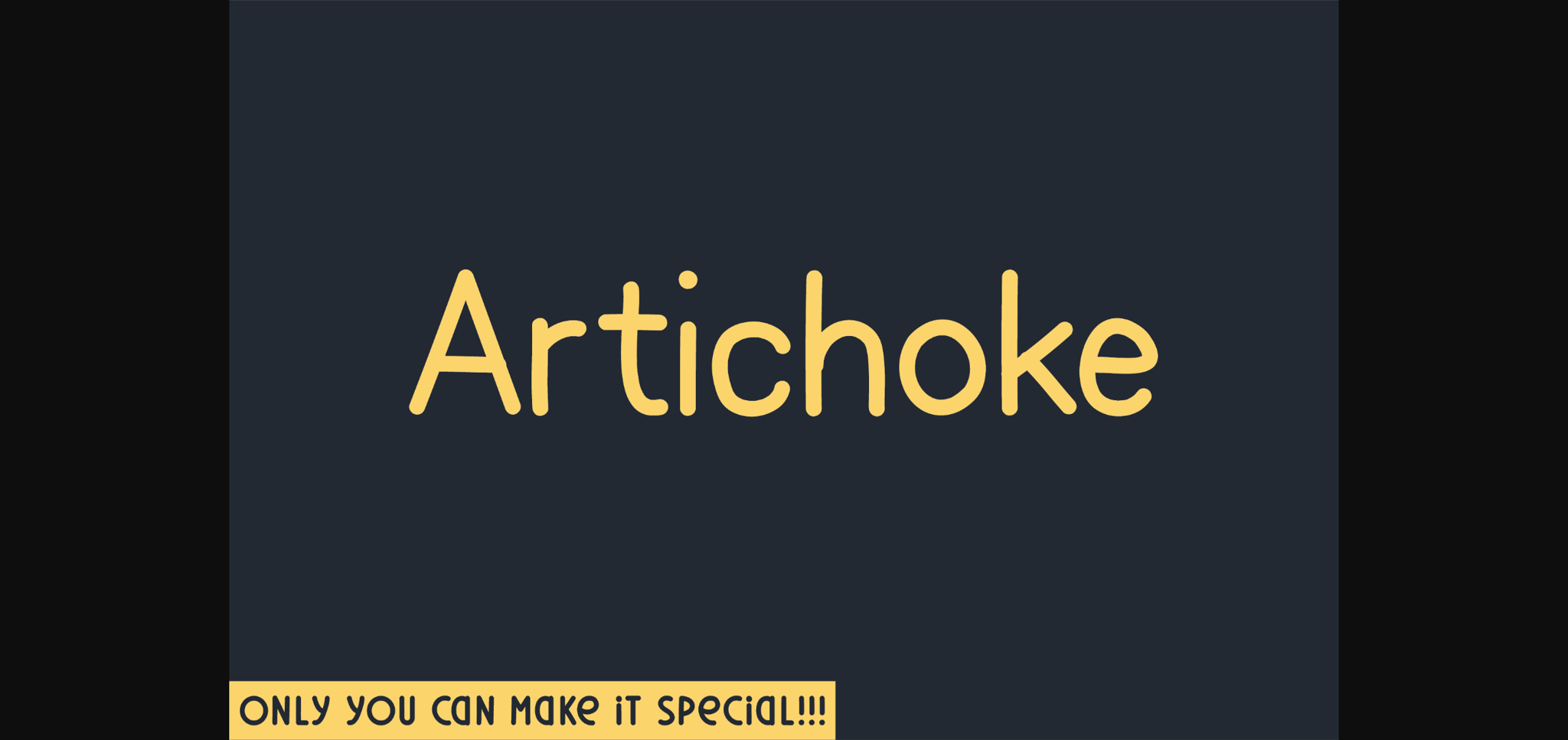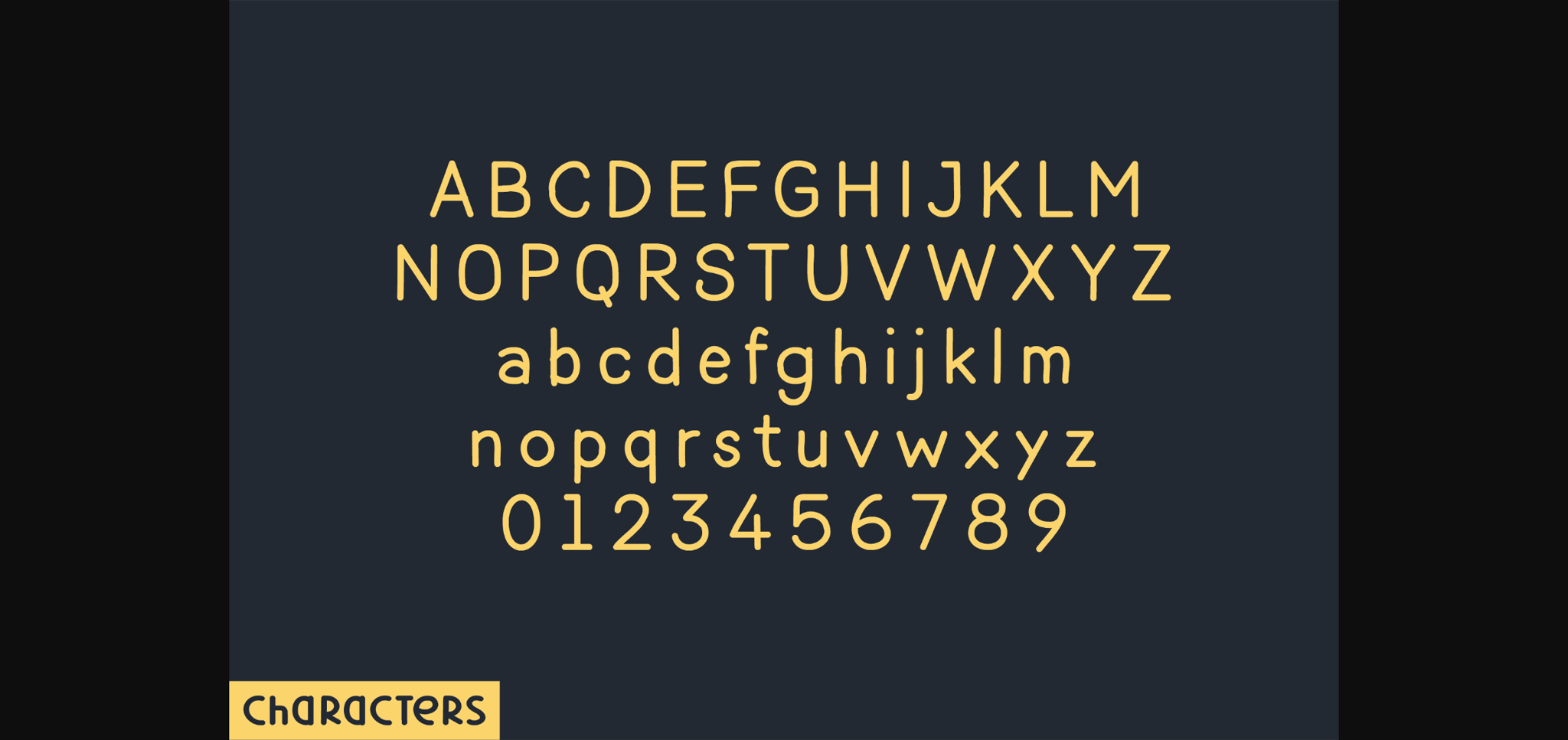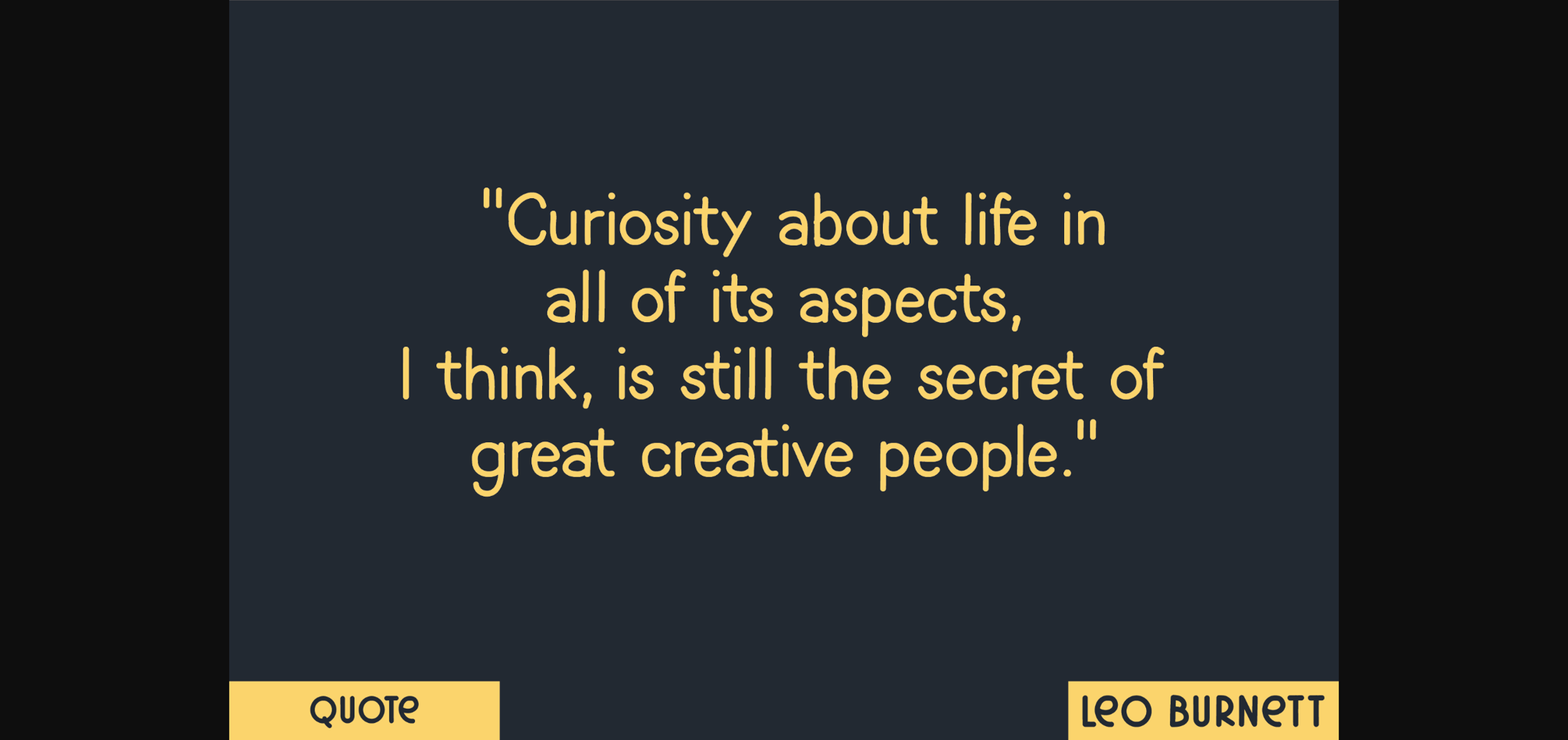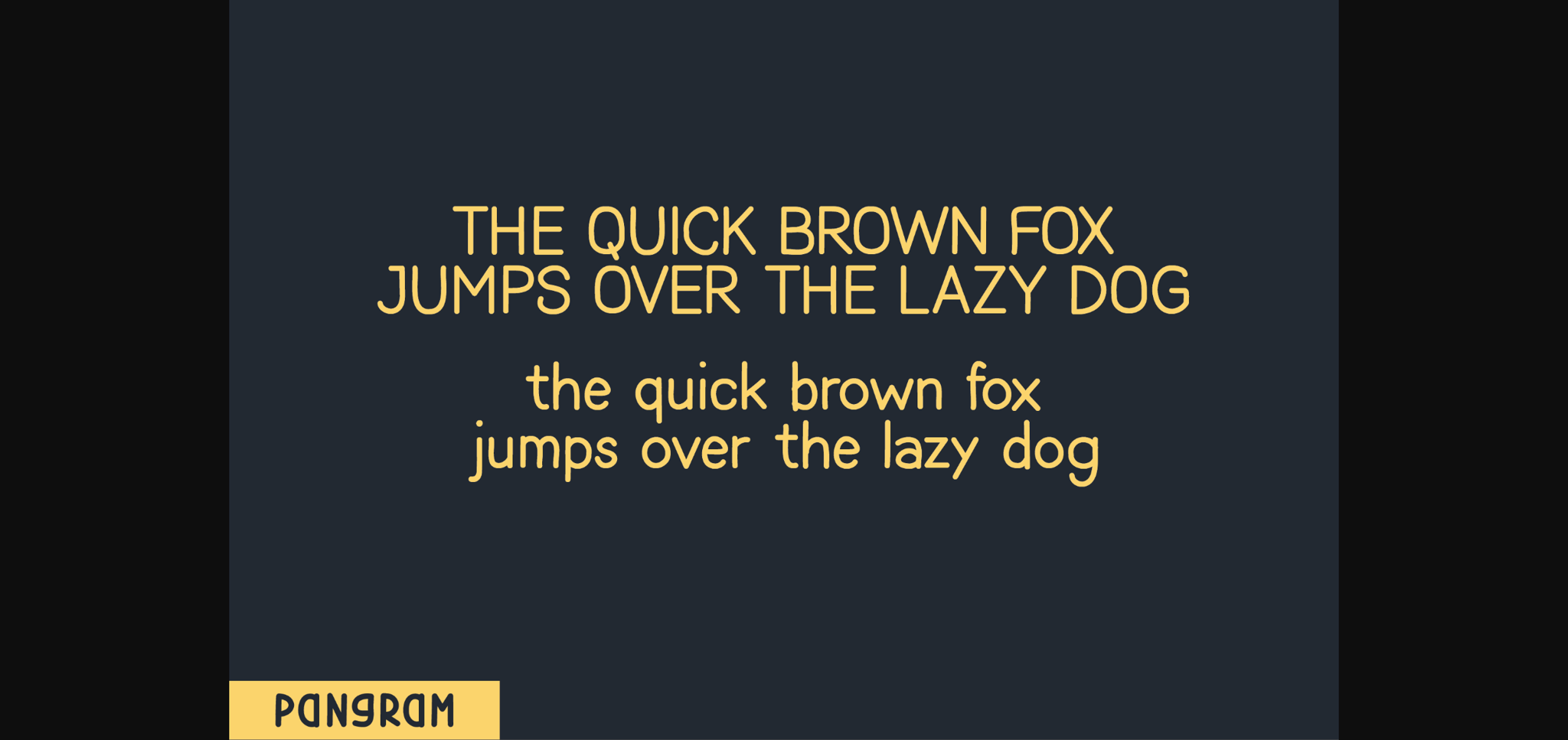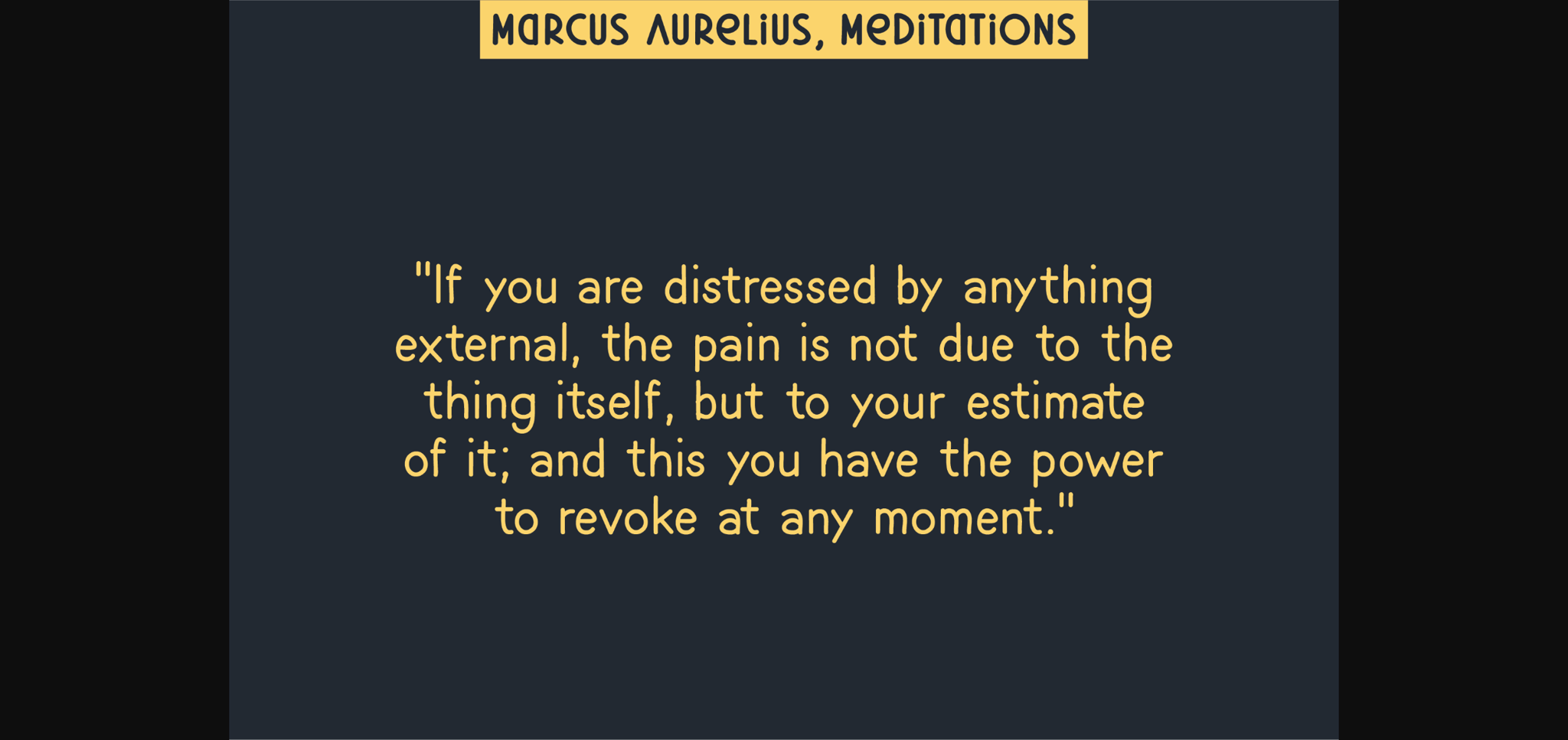
About Artichoke Font
Artichoke is a natural sans serif font created without changing a single node in each character’s indentation – this makes this font very interesting and unique. Perfect for quotes, notes, tees, and any product design.